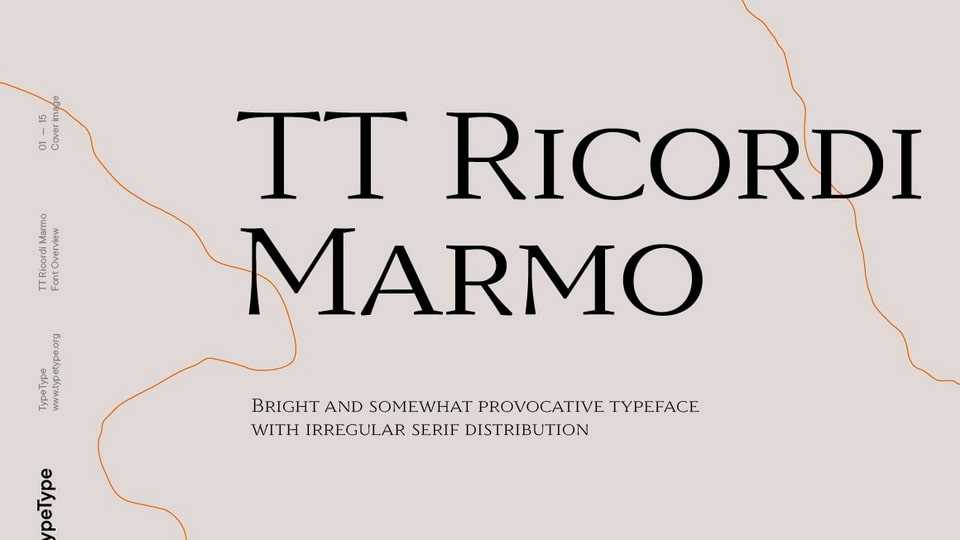
Download TT Ricordi Marmo font, an original experimental typeface inspired by inscriptions at Basilica di Santa Croce in Florence. It is a contemporary typeface which would unite the elements of a Florentine sans serif mixed with more traditional visual solutions typical for the period’s serifs.